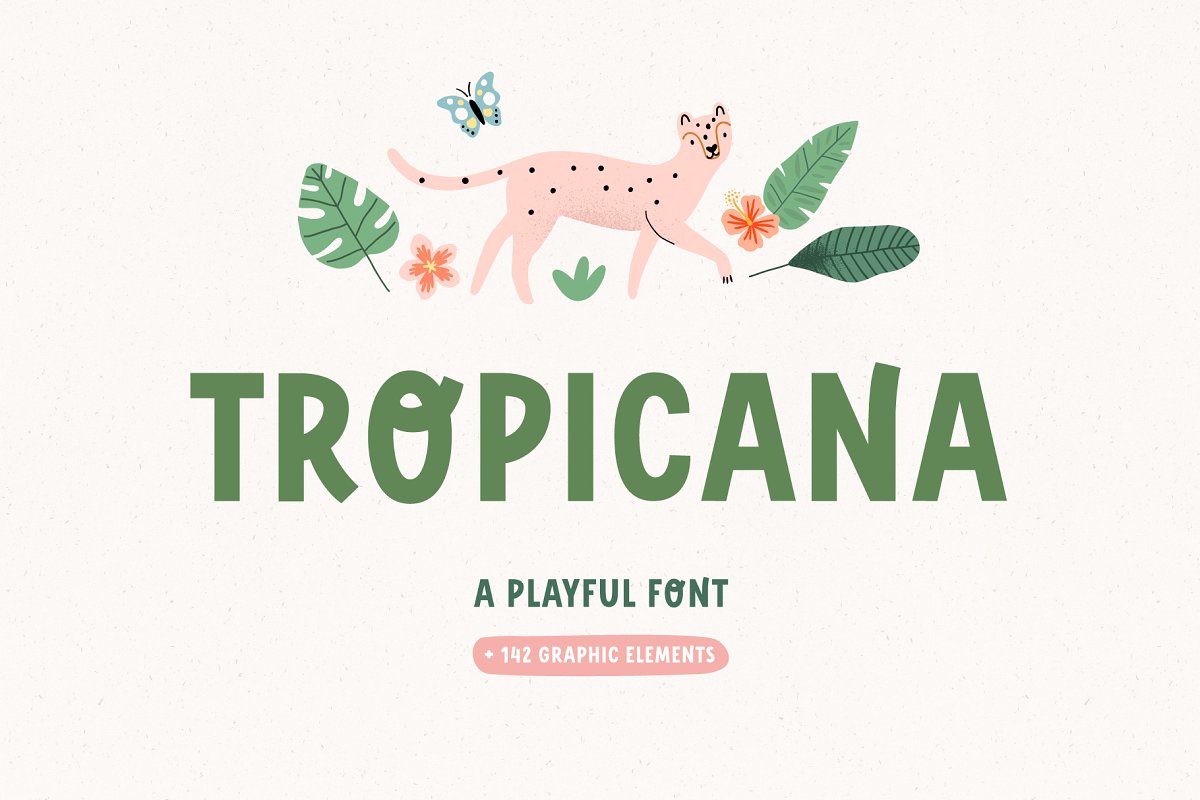
About the TROPICANA | Playful font
TROPICANA- a super fun and playful bold typeface, It is perfect for headings, flyer, greeting cards, product packaging, book cover, printed quotes, logotype, apparel design, album covers, etc, What’s inside:TROPICANA, otfTROPICANA-Outline, otf142 clipart elements (AI, PNG with transparent background, EPS)If you have any questions, please contact me directly: ang